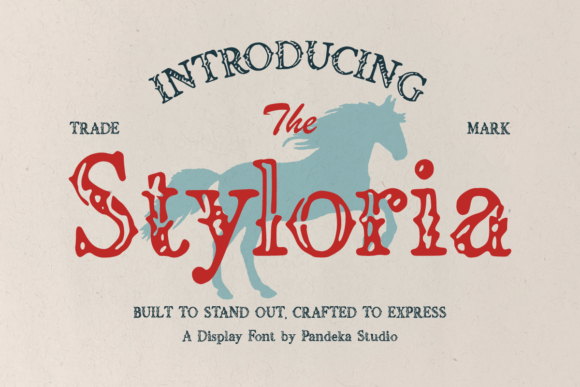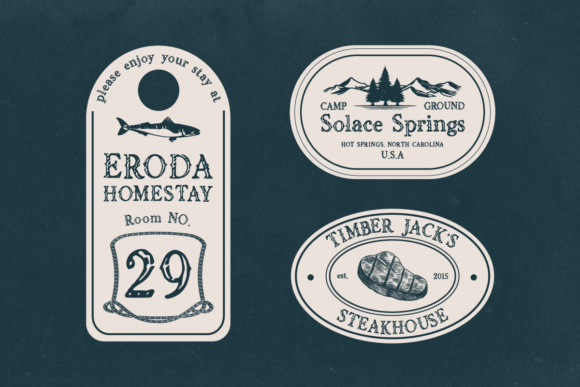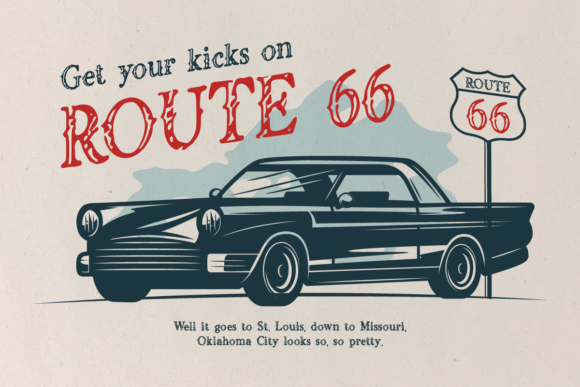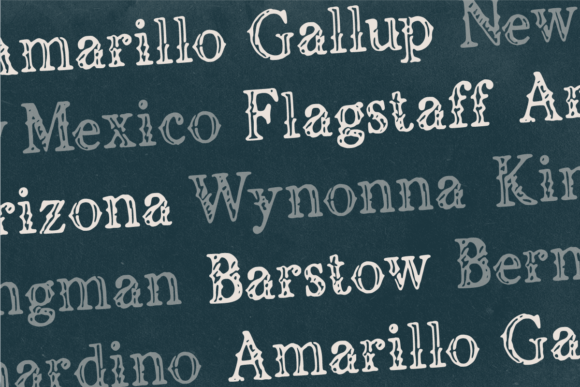
Styloria Font: Bold Vintage Typography for Rustic Logo Design & Branding
About the Styloria Font
Get ready to be inspired by Styloria Font, a fresh and dynamic typeface for modern creators. Styloria is a bold vintage display font with a western aesthetic and classic lettering style. Its rustic charm makes it perfect for rodeo-themed designs, posters, labels, badges, signage, apparel, and branding. With a timeless design and strong typography, Styloria captures the authentic spirit of the Old West, adding a unique, rugged character to any project.
Styloria Font Usage Examples
Styloria Font Example